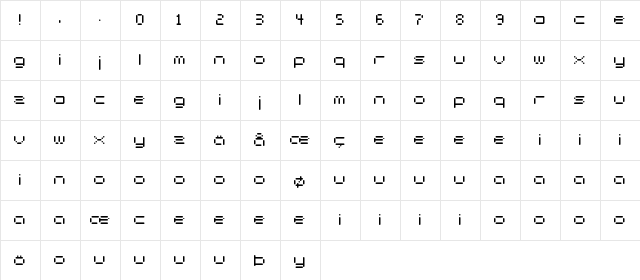
virale Regular
| Designer | Piratype |
Design Context for virale Typeface
virale is a composed and adaptable typeface that performs quietly and consistently across a wide range of design contexts.